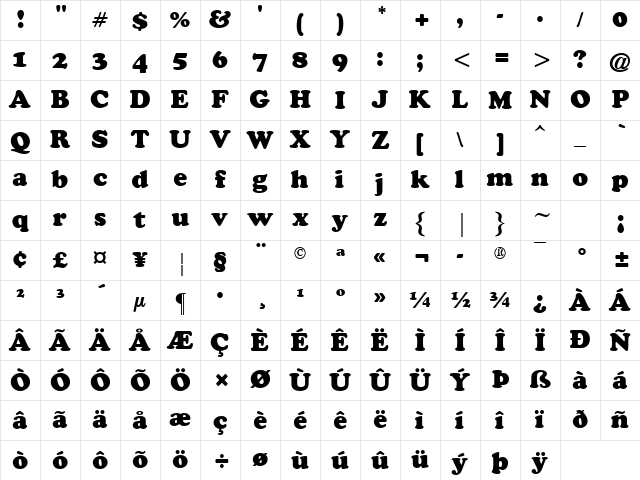
Cooper Black ATT Regular
Complete Cooper Black ATT Regular glyph index. Displaying only characters natively supported by Cooper Black ATT Regular font.
Design Context for Cooper Black ATT
Cooper Black ATT is a composed and adaptable typeface that performs quietly and consistently across a wide range of design contexts.